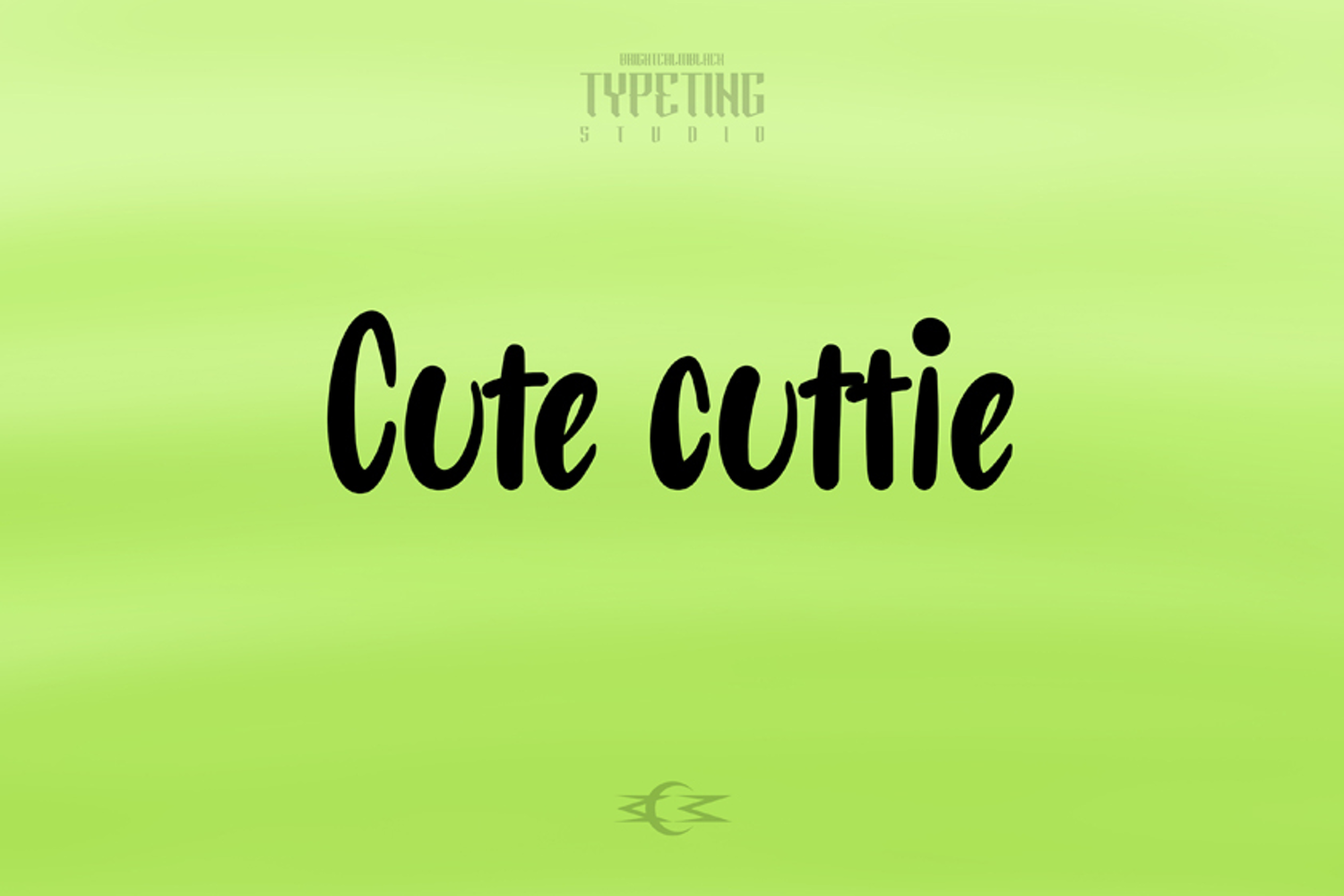
Cute cuttie
Expressive handwritten fonts bring unique, playful, and modern characters, perfect for branding, posters, packaging, social media, your creative projects.
typeting studio